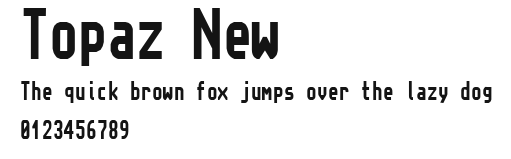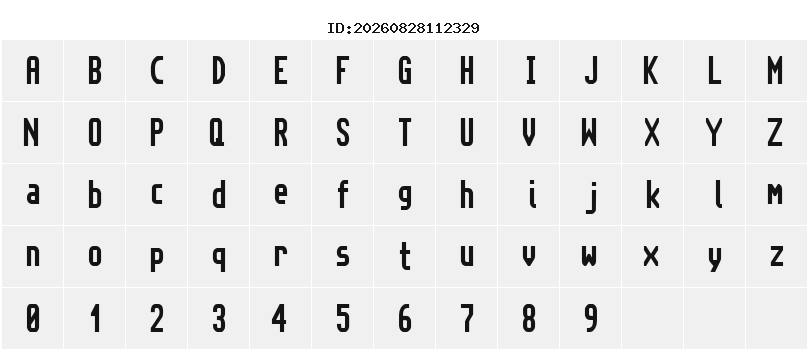
• Font Name: Topaz New
• Full Font Name: Topaz New
About Topaz New.ttf
Topaz New.ttf is a modern, elegant sans-serif font designed for ultimate readability and visual harmony. Perfect for branding, headlines, web design, and print materials.